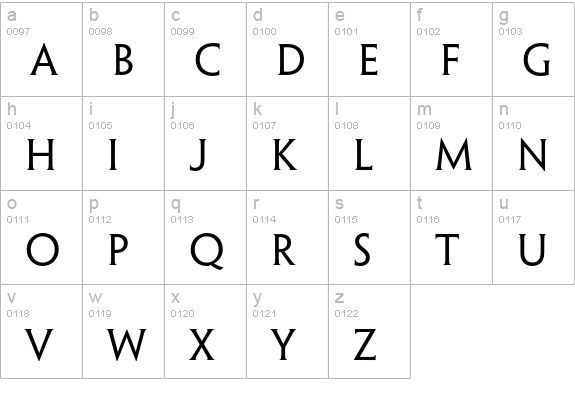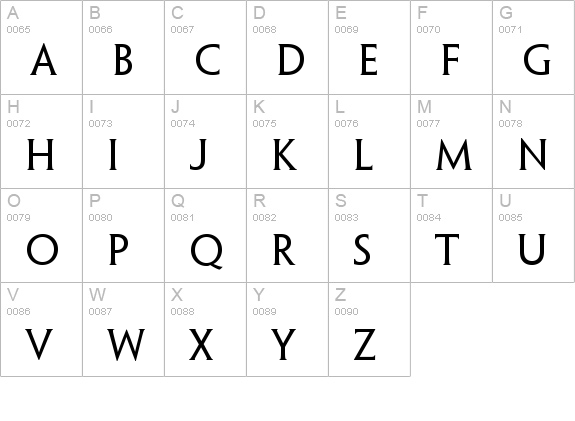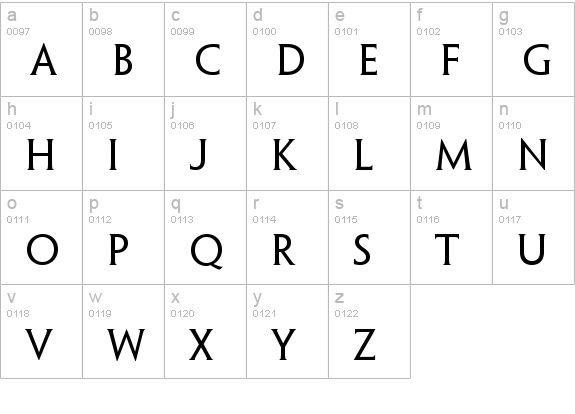
Penumbra HalfSerif Std Font Details
Penumbra HalfSerif Std is a visually striking font that exudes elegance and sophistication. With its unique combination of serif and sans-serif elements, it offers a perfect balance between traditional and modern typography. This font is perfect for a wide range of design projects, from editorial layouts to branding materials. The distinctive design of Penumbra HalfSerif Std showcases its versatility and adaptability. It effortlessly captures attention and adds a touch of refinement to any piece of text. Whether it's used for headlines, body copy, or accents, this font is sure to make a lasting impression. One of the most remarkable aspects of Penumbra HalfSerif Std is that it is available for free download at FontsMarket.com. This means that designers and creatives can easily access this exceptional font without any cost. The freedom to use this font without restrictions opens up a world of possibilities for designers who are looking to enhance their projects with a touch of sophistication. The carefully crafted letterforms of Penumbra HalfSerif Std are a testament to the meticulous attention to detail that went into its creation. Each character is meticulously designed to ensure legibility and readability, even at smaller sizes. The font's smooth curves and clean lines contribute to its overall elegance and make it a pleasure to read. Whether you're designing a logo, creating a brochure, or working on a website, Penumbra HalfSerif Std is a font that will elevate your design to new heights. Its versatility, combined with its timeless appeal, makes it an excellent choice for any project. In conclusion, Penumbra HalfSerif Std is a stunning font that combines traditional and modern elements to create a visually striking typeface. Its elegance and sophistication make it perfect for a wide range of design projects. And the best part? It's available for free download at FontsMarket.com, giving you the freedom to use this exceptional font in your designs without any cost. Embrace the beauty and versatility of Penumbra HalfSerif Std and let your creativity soar.